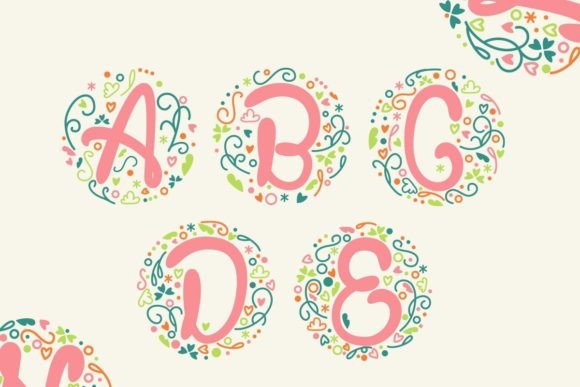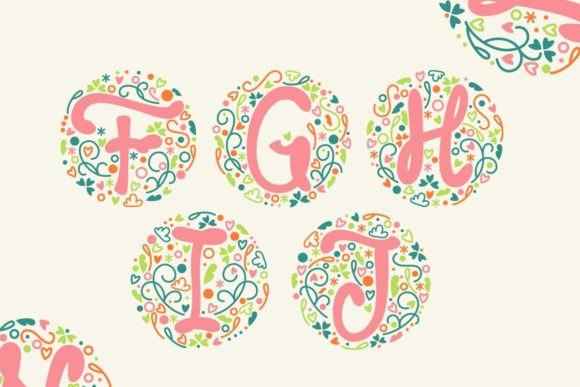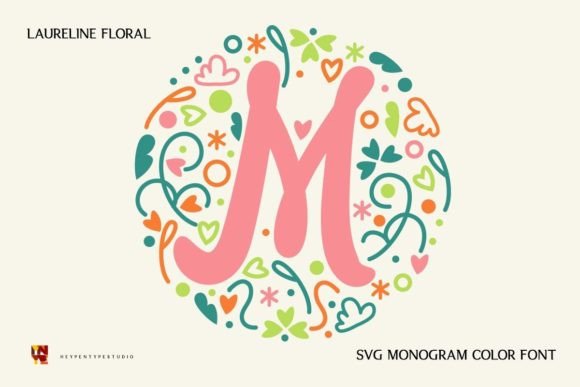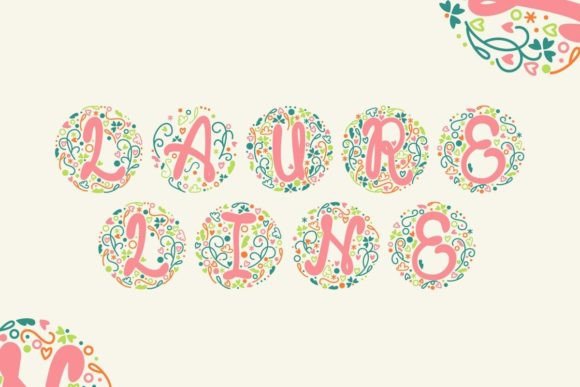
Laureline Floral Monogram Font
About the Laureline Floral Monogram Font
Step up your design game with Laureline Floral Monogram Font, a font that exudes confidence and style. Laureline Floral Monogram is a beautiful and cute floral monogram color font. A cute, soft, and fancy color font for your crafting project or your other decorative design project. Its different design pattern for every letter means you can create colorful artwork with this font. A unique brush script monogram is rare, your design can stand-out with this color font.